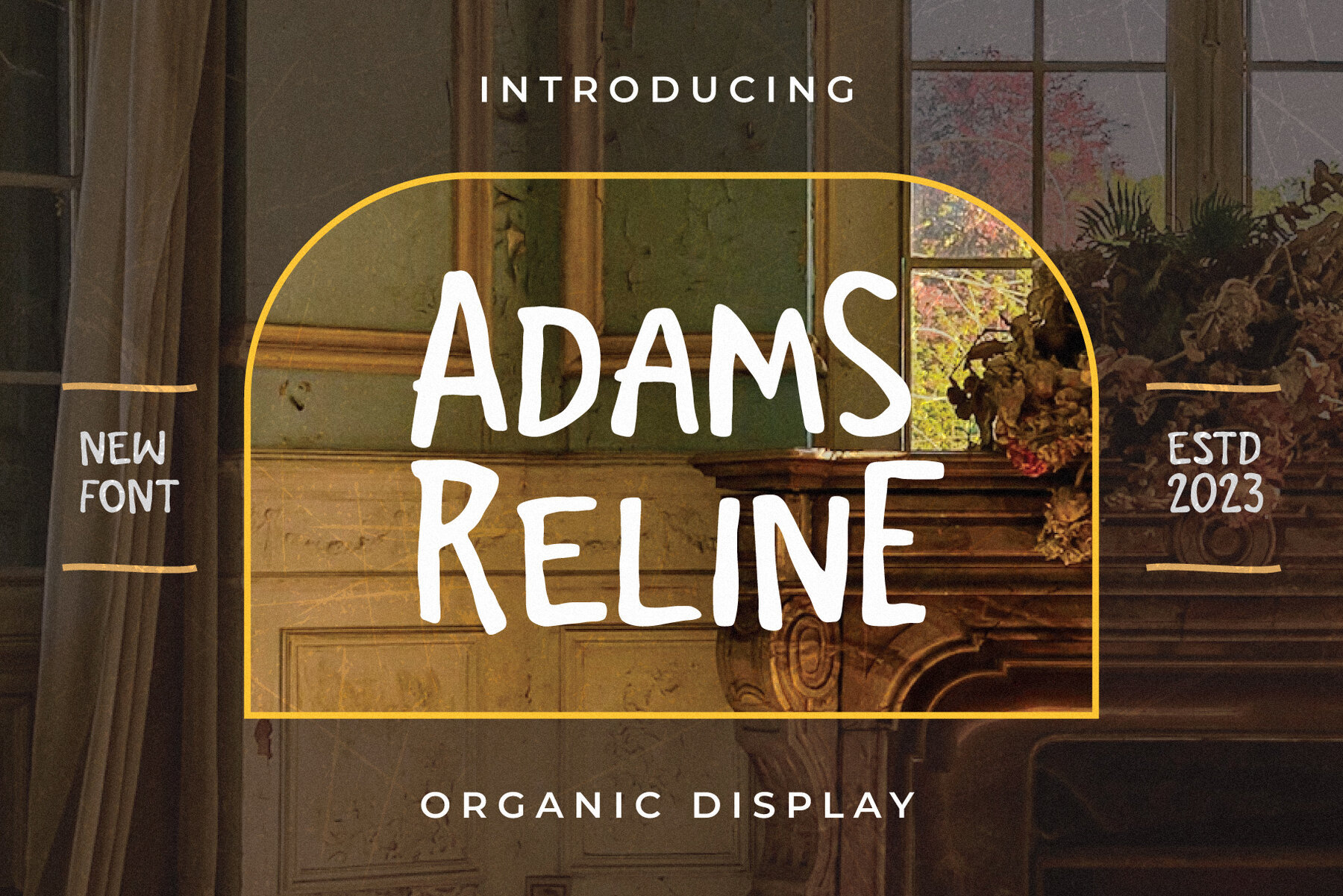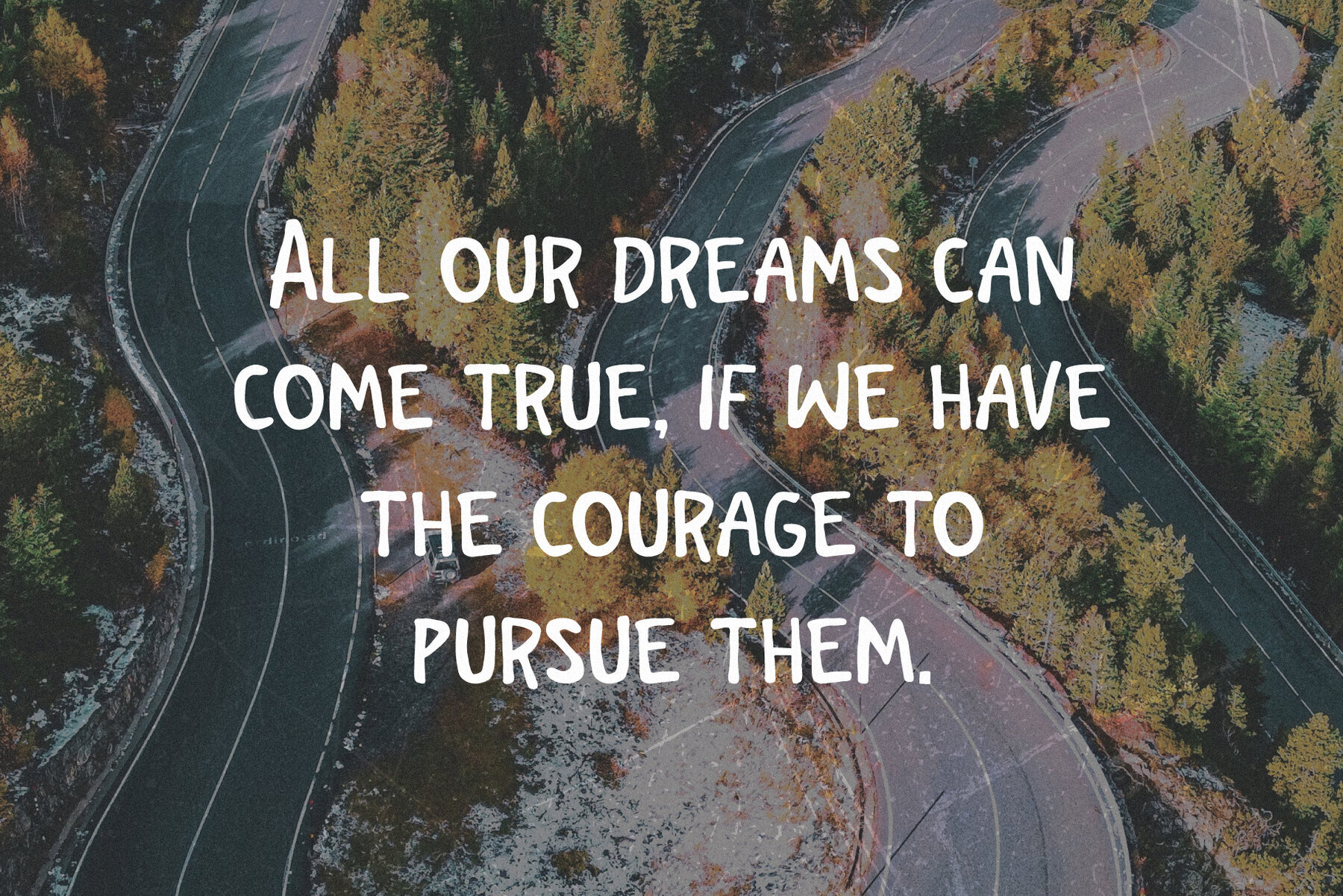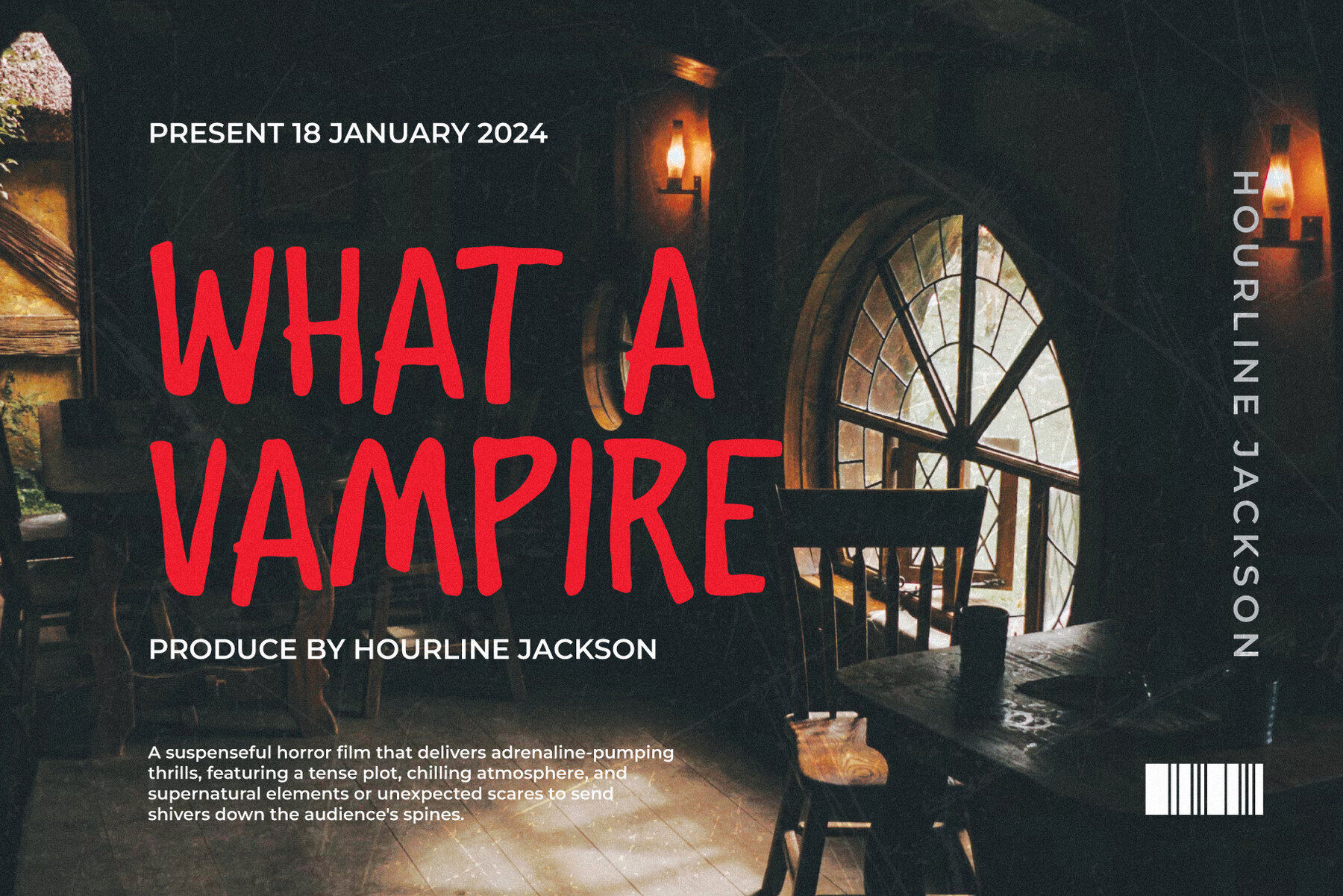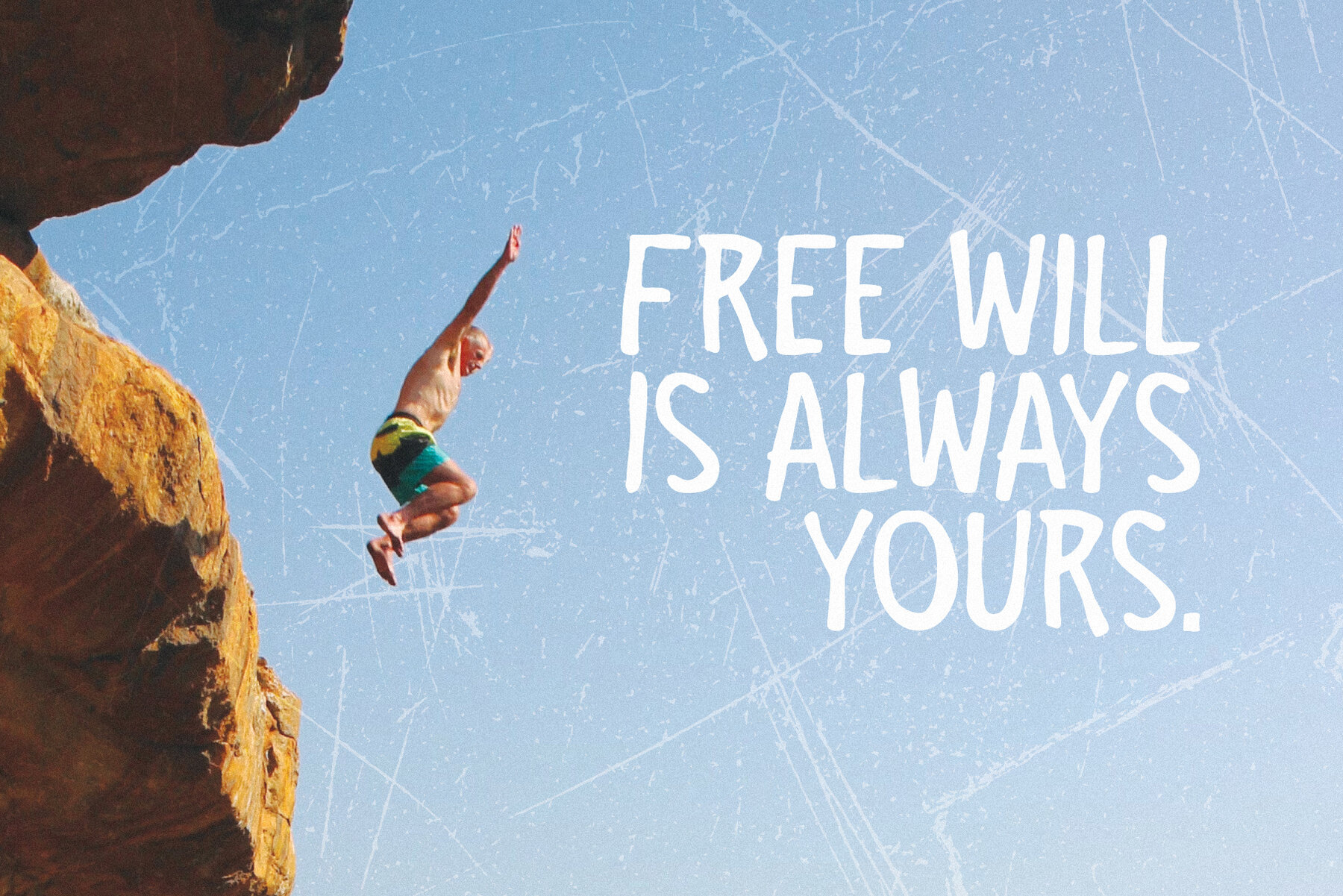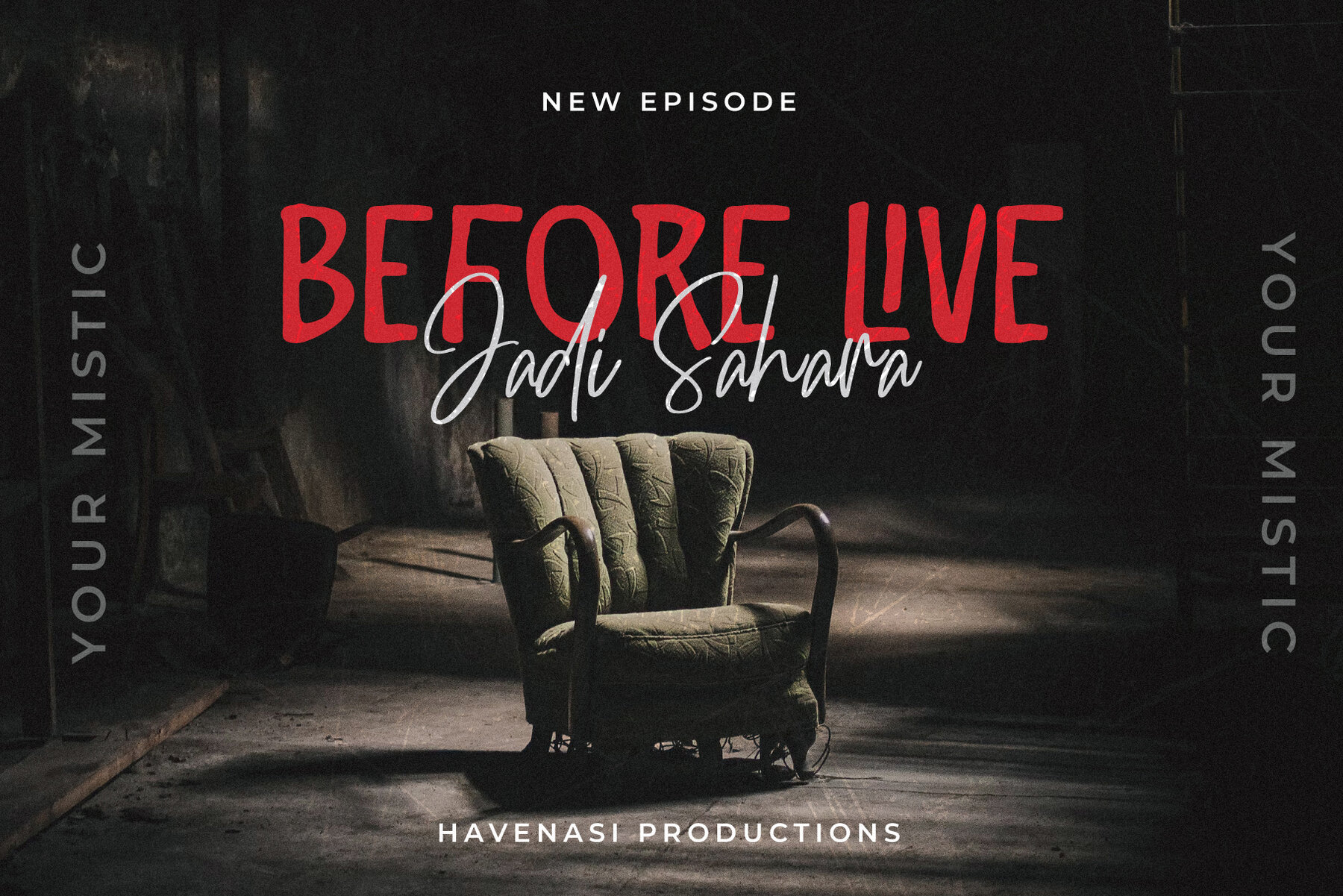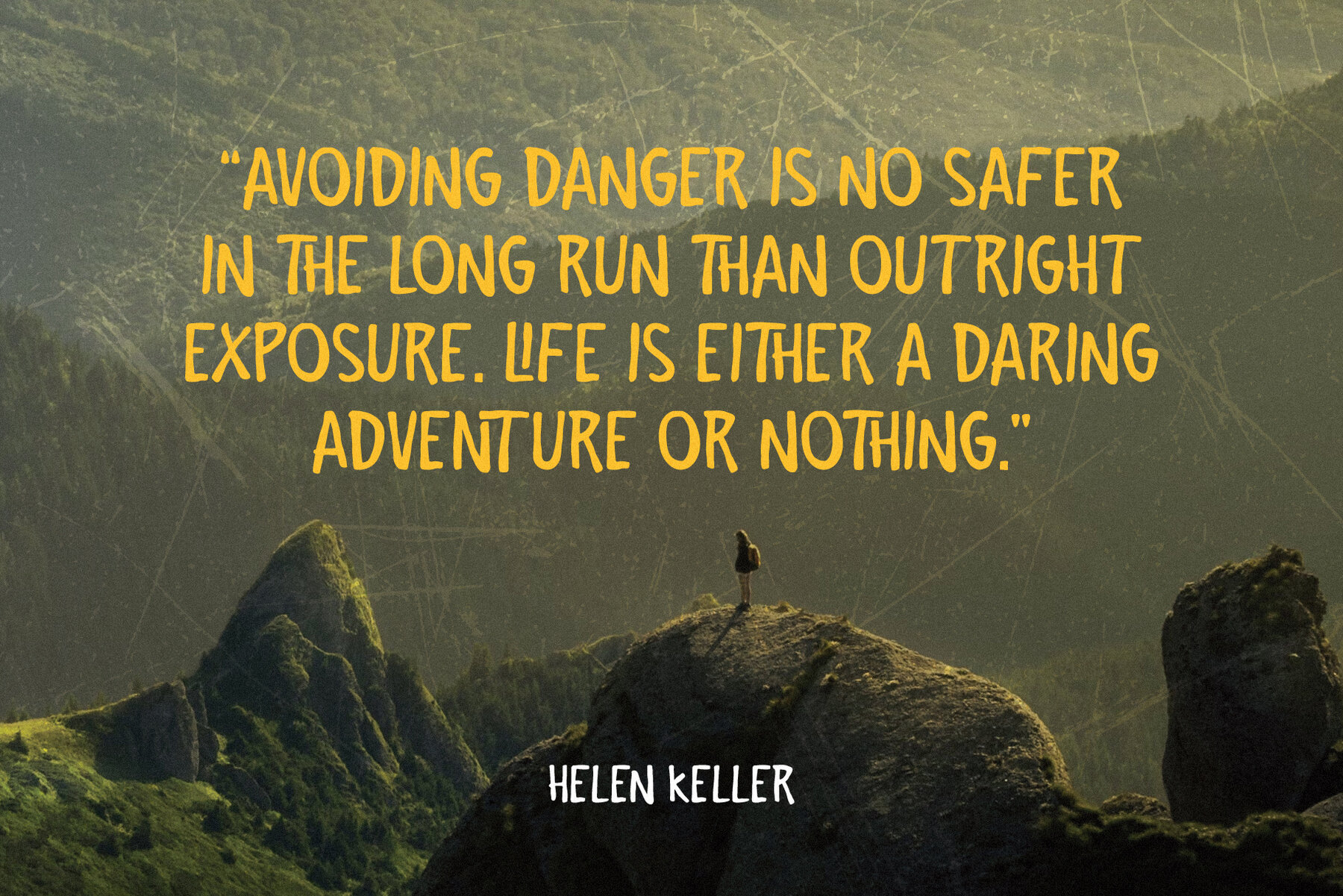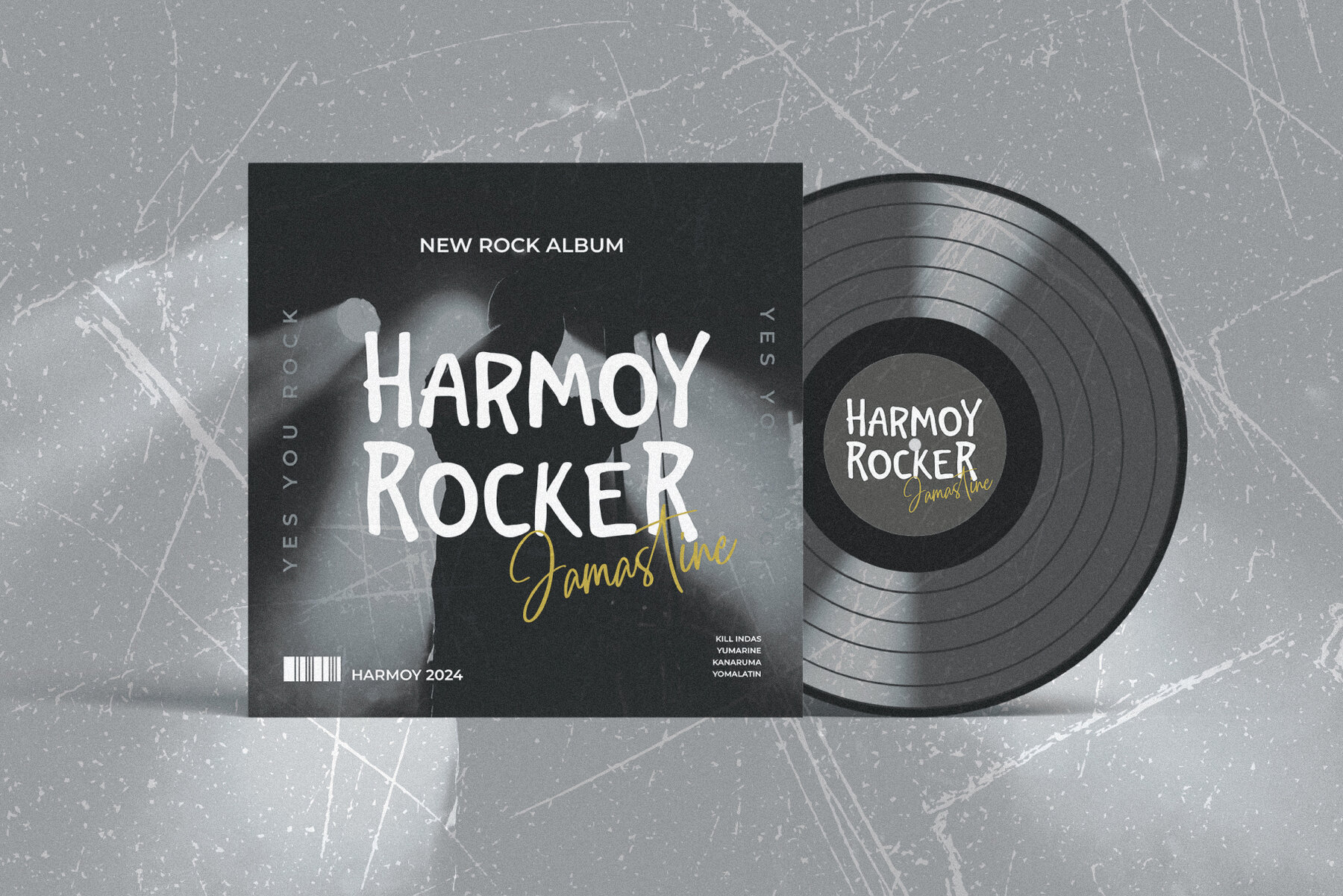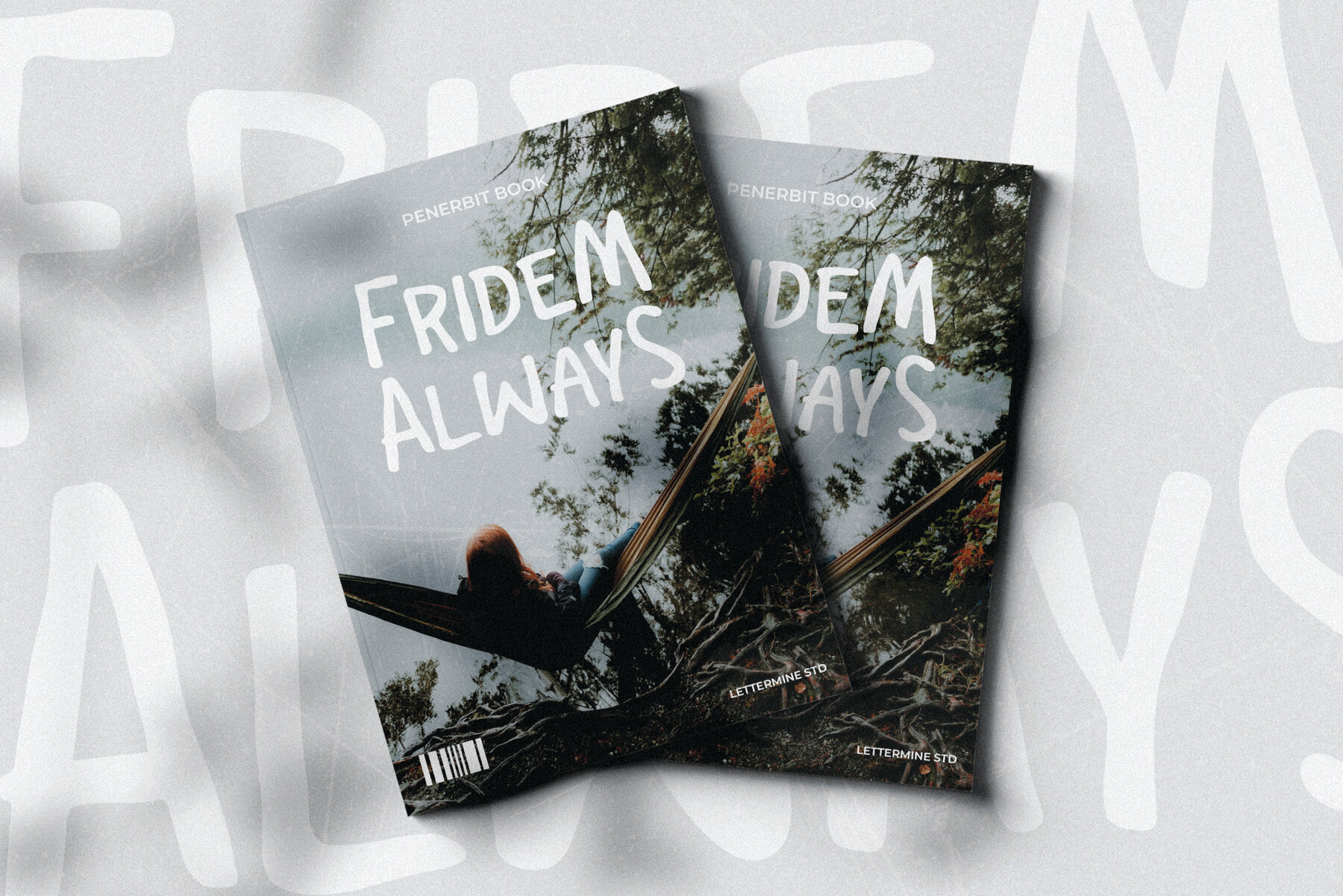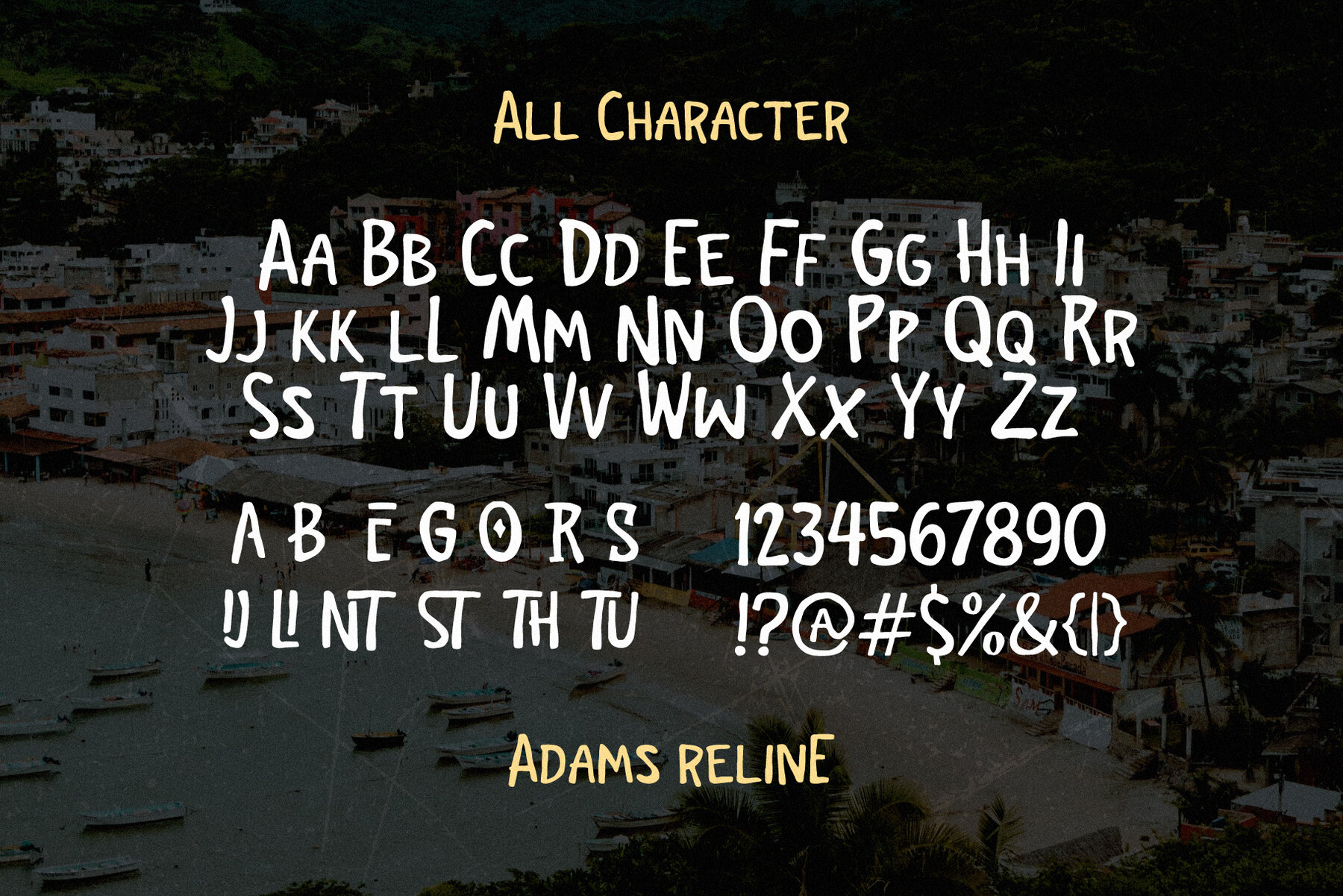
Adams Reline is a captivating organic Allcaps font designed for those seeking a touch of nature-inspired elegance. With its unique blend of curvaceous uppercase and lowercase letters, Adams Reline effortlessly captures the essence of organic beauty. Key Features: Allcaps Design: Adams Reline exudes a distinctive charm with its allcaps structure, making each character a statement of style. Stylish Lowercase Uppercase: The lowercase characters in Adams Reline are skillfully crafted to possess an uppercase flair, adding a dynamic and sophisticated touch to your designs. Ligatures: Elevate your typography game with ligatures that seamlessly connect characters, providing a fluid and harmonious look to your text. Alternatives: Customize your designs with alternative characters, allowing for versatility and creative expression in every project. Multilingual Support: Adams Reline goes beyond language barriers, offering multilingual support to ensure your message is conveyed with clarity and grace across diverse audiences. Whether you're working on branding, packaging, or any design project, Adams Reline stands out as a font that fuses organic aesthetics with modern sophistication. Elevate your creations with the timeless charm of Adams Reline and make a lasting impression. ----------------------------------------------------------------------------------------------------------------- Copyright © 2024 by Lettermine. All rights reserved. No part or whole of this font may be reproduced or resale.